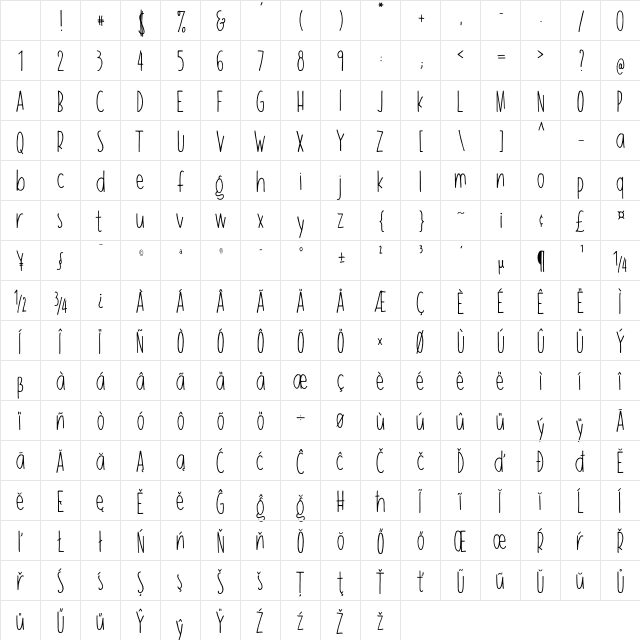
Complete Zion Regular glyph index. Displaying only characters natively supported by Zion Regular font.
Zion is a composed and adaptable typeface that performs quietly and consistently across a wide range of design contexts.